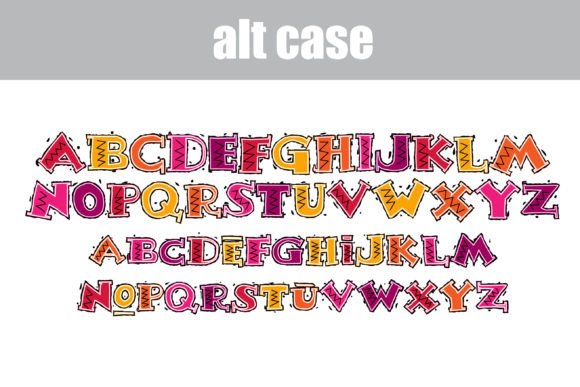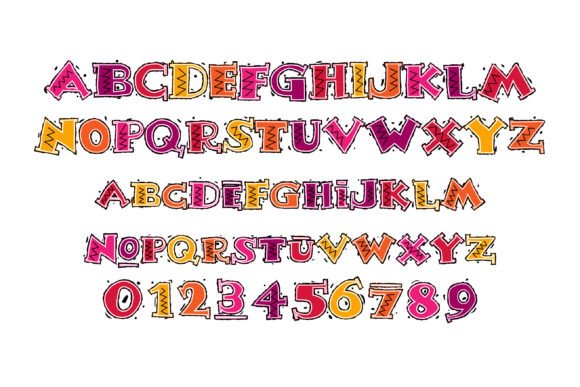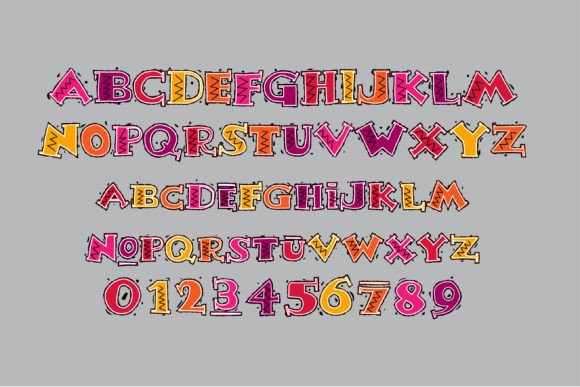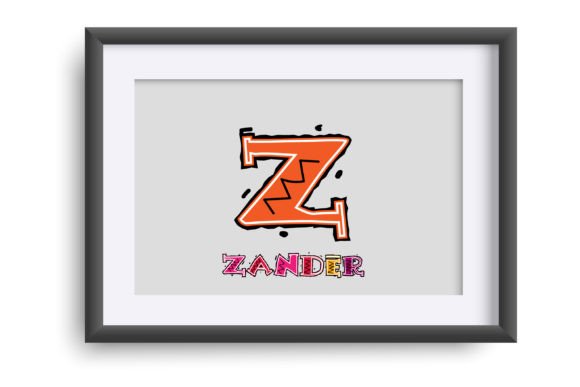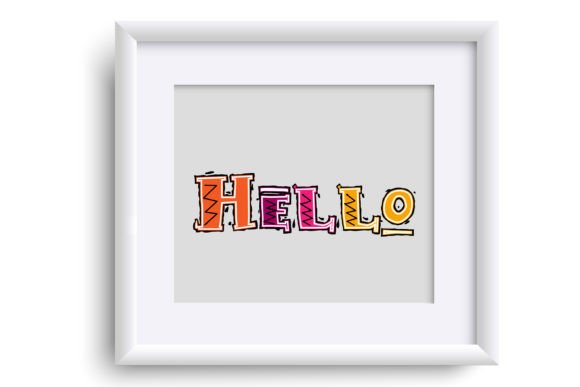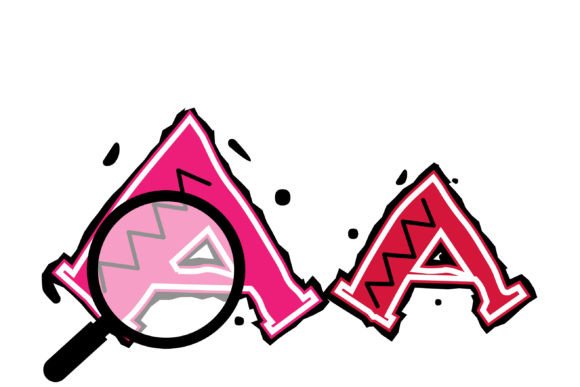
Cinco De Agosto Font: A Vibrant Aztec-Inspired Font for Your Creative Projects
Are you looking for a font that can add a pop of color and a touch of Aztec flair to your designs? Look no further than the Cinco De Agosto Font. This full-color font features a vibrant, summer color palette that’s perfect for titles, displays, posters, and more. In this article, we’ll take a closer look at the features and benefits of the Cinco De Agosto Font, and explore how you can use it to elevate your creative projects.
What is the Cinco De Agosto Font?
The Cinco De Agosto Font is a unique and eye-catching font that combines the bold, geometric lines of Aztec typography with a hot, summer color palette. The font features a range of bright, bold colors that are sure to grab attention and add visual interest to your designs. Whether you’re creating a poster, flyer, or social media graphic, this font is sure to make your text stand out.
Key Features of the Cinco De Agosto Font
So, what sets the Cinco De Agosto Font apart from other fonts? Here are some of its key features:
- Full-color font: The Cinco De Agosto Font is a full-color font, which means that it features a range of colors that can be used to add depth and visual interest to your designs.
- Aztec-inspired design: The font features a bold, geometric design that’s inspired by Aztec typography.
- Hot, summer color palette: The font features a vibrant, summer color palette that’s perfect for creating eye-catching designs.
- Alt case with additional colors: The font includes an alt case with additional colors that can be accessed through your system’s character map.
- Type in color: When you type with the Cinco De Agosto Font, you’ll see the colors come alive. If your program supports color fonts, you’ll see the font in color. If not, it will show as black.
Tips for Getting the Most Out of the Cinco De Agosto Font
Here are some tips for getting the most out of the Cinco De Agosto Font:
- Use it for titles and displays: The font is perfect for titles, displays, and posters. Use it to add a pop of color and create eye-catching designs.
- Experiment with different colors: The font features a range of colors, so don’t be afraid to experiment and try out different combinations.
- Pair it with other fonts: The Cinco De Agosto Font can be paired with other fonts to create interesting and dynamic designs.
Benefits of Using Full-Color SVG Fonts
Full-color SVG fonts, like the Cinco De Agosto Font, offer a range of benefits, including:
- Increased visual interest: Full-color fonts can add a level of visual interest to your designs that’s hard to achieve with traditional fonts.
- Greater creative flexibility: With a range of colors to choose from, you have greater creative flexibility and can experiment with different designs.
The Cinco De Agosto Font is a vibrant and eye-catching font that’s perfect for designers and crafters who want to add a pop of color to their designs. With its Aztec-inspired design, hot summer color palette, and compatibility with a range of programs, this font is sure to become a favorite. Whether you’re creating titles, displays, posters, or more, the Cinco De Agosto Font is a great choice. So why not give it a try and see what amazing designs you can create?